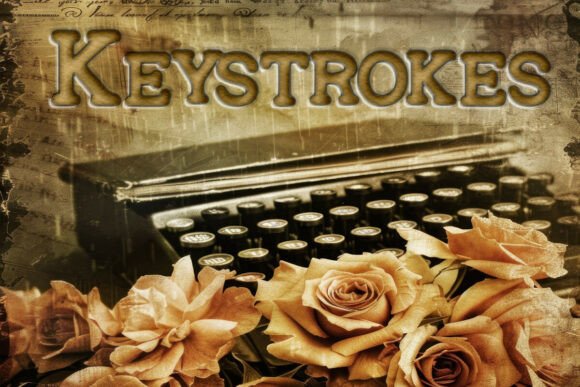
Introduction to Keystrokes Font Font
Fonts play a crucial role in design, and the Keystrokes Font font is a typeface that brings both character and versatility to any project. Whether you’re working on a branding project, a website, or a print design, the Keystrokes Font font offers a unique style that can elevate your work.
Introducing Keystrokes font, your new go-to tool for creative expression.
Perfectly suited for shirt designs, branding endeavors, crafting stunning magazines, or transforming SVG files, this font brings an elevated degree of versatility and style Whether youβre designing heartwarming greeting cards, embarking on dynamic Cricut projects, creating eye-catching posters, or injecting personality into your social media presence, the Keystrokes font is perfectly adaptable and uniquely stylish.
Key Features of Keystrokes Font Font
Why Choose Keystrokes Font Font?
The Keystrokes Font font is more than just a typeface β it’s a design tool that helps you communicate your message with style and clarity. Its unique character set and versatile design make it suitable for a wide range of applications, from elegant invitations to bold headlines.
With its carefully crafted letterforms and balanced proportions, the Keystrokes Font font ensures readability and visual appeal across all mediums.
What makes Keystrokes Font font special?
The Keystrokes Font font stands out with its unique design, exceptional readability, and versatility across various design applications.